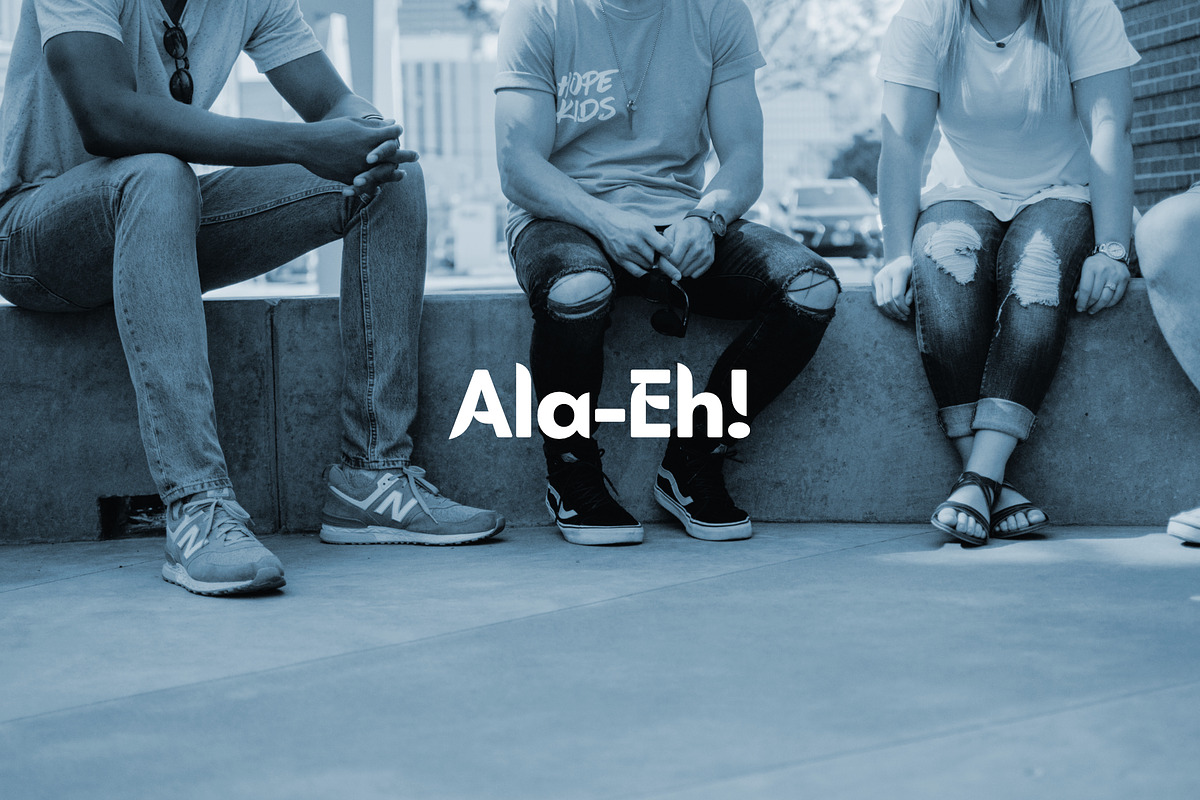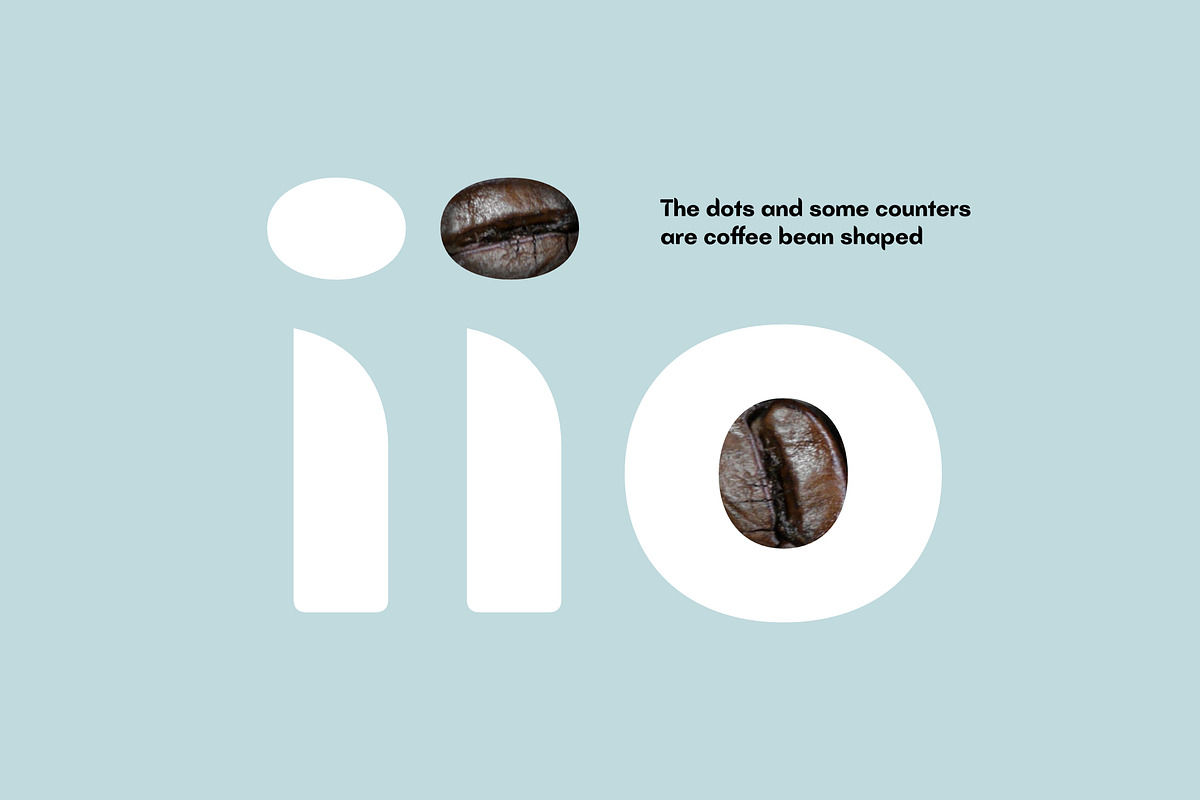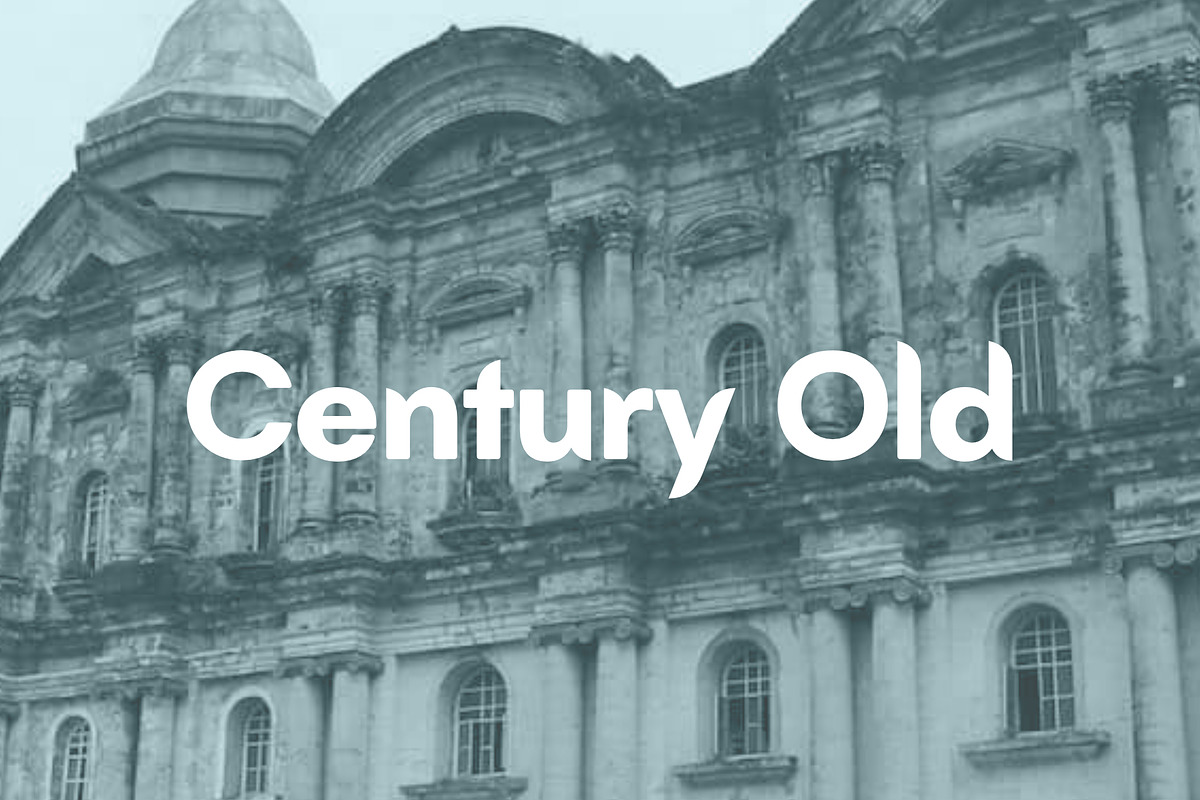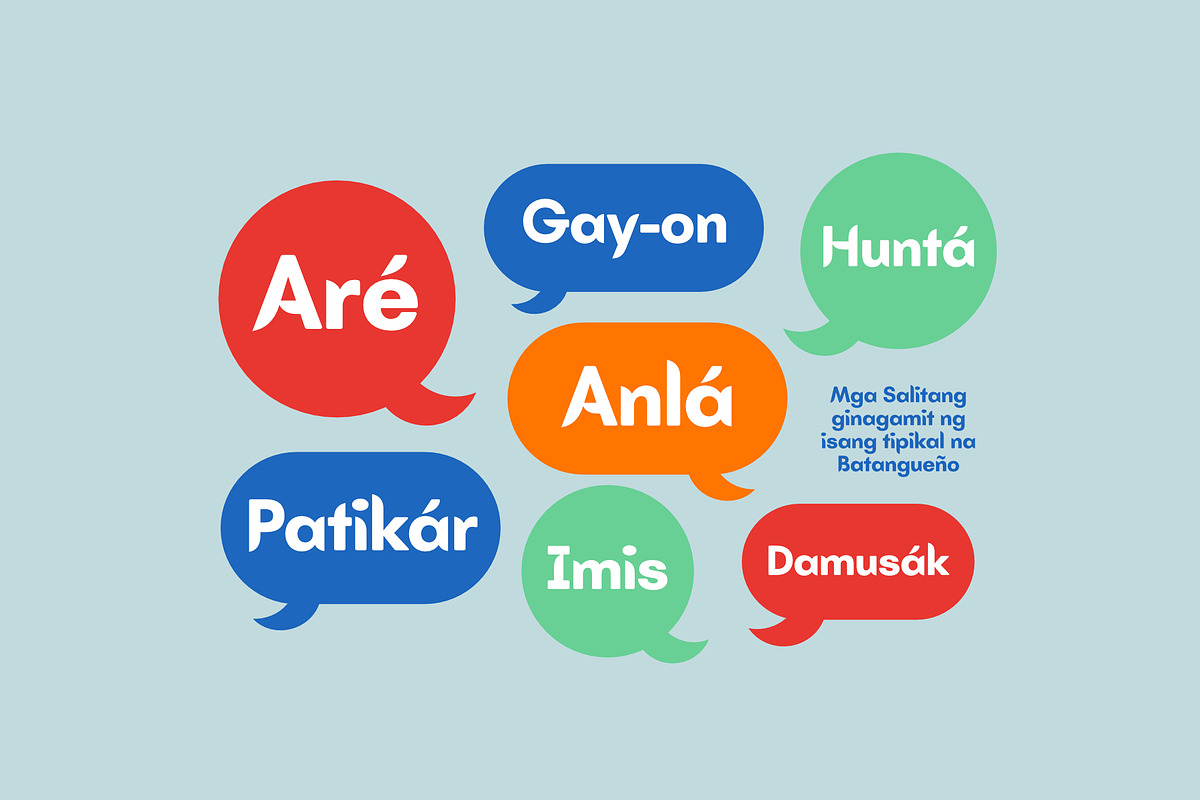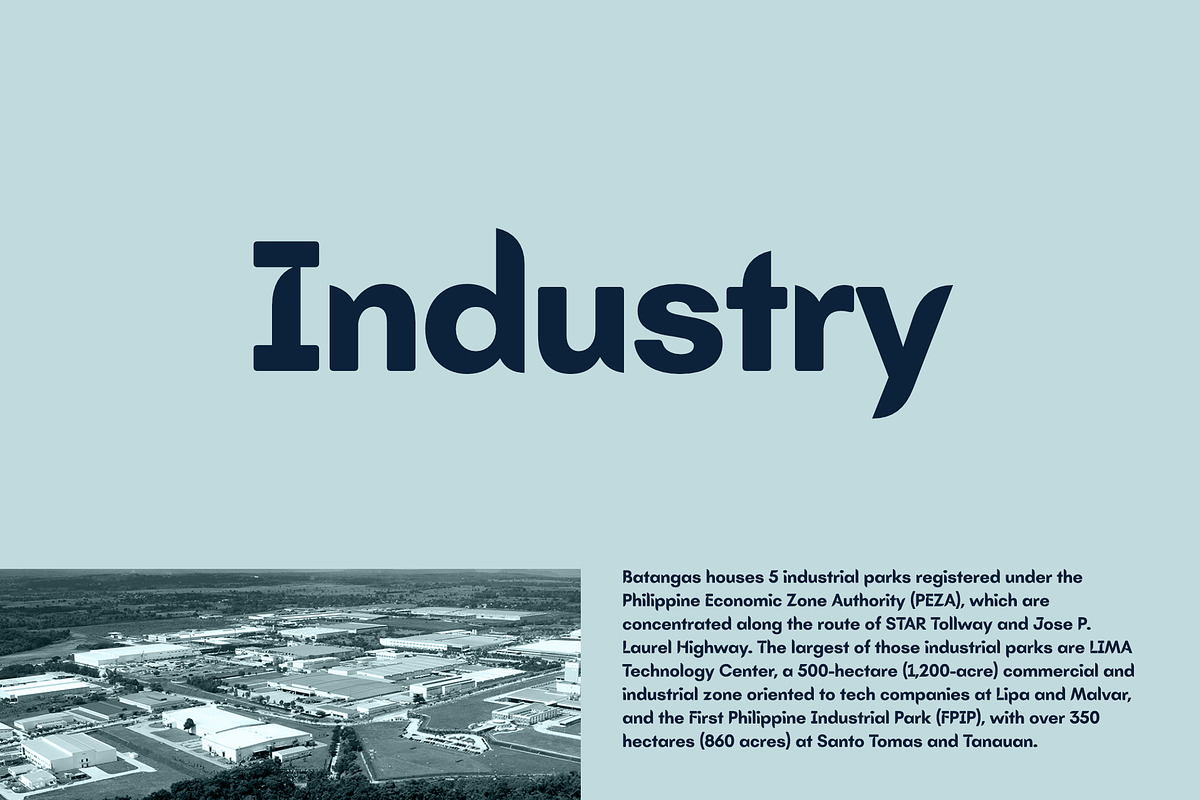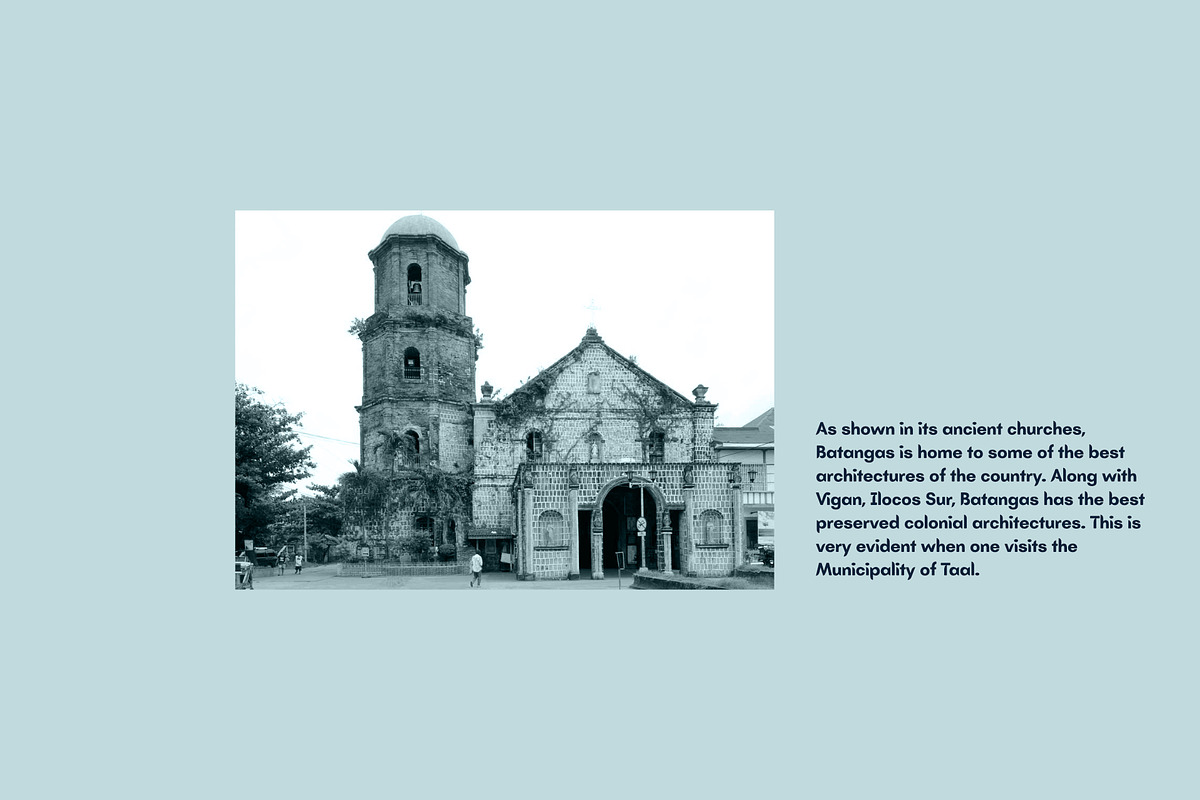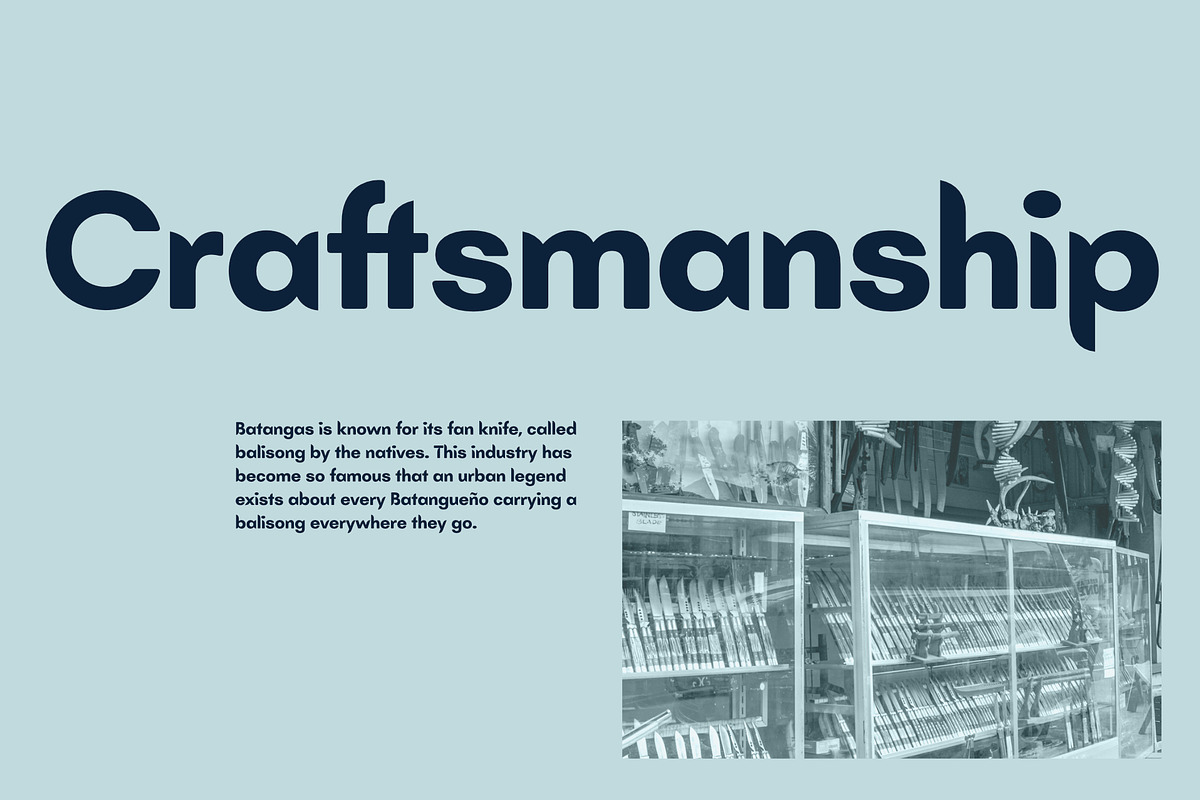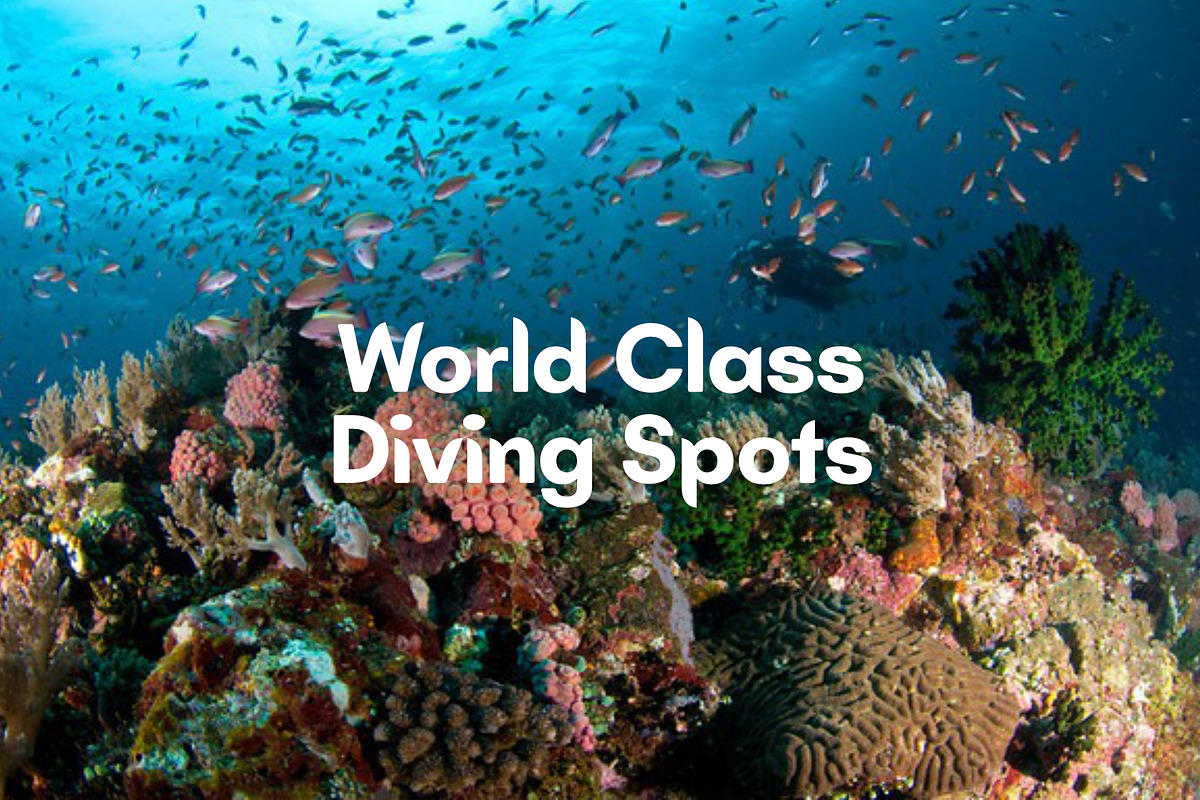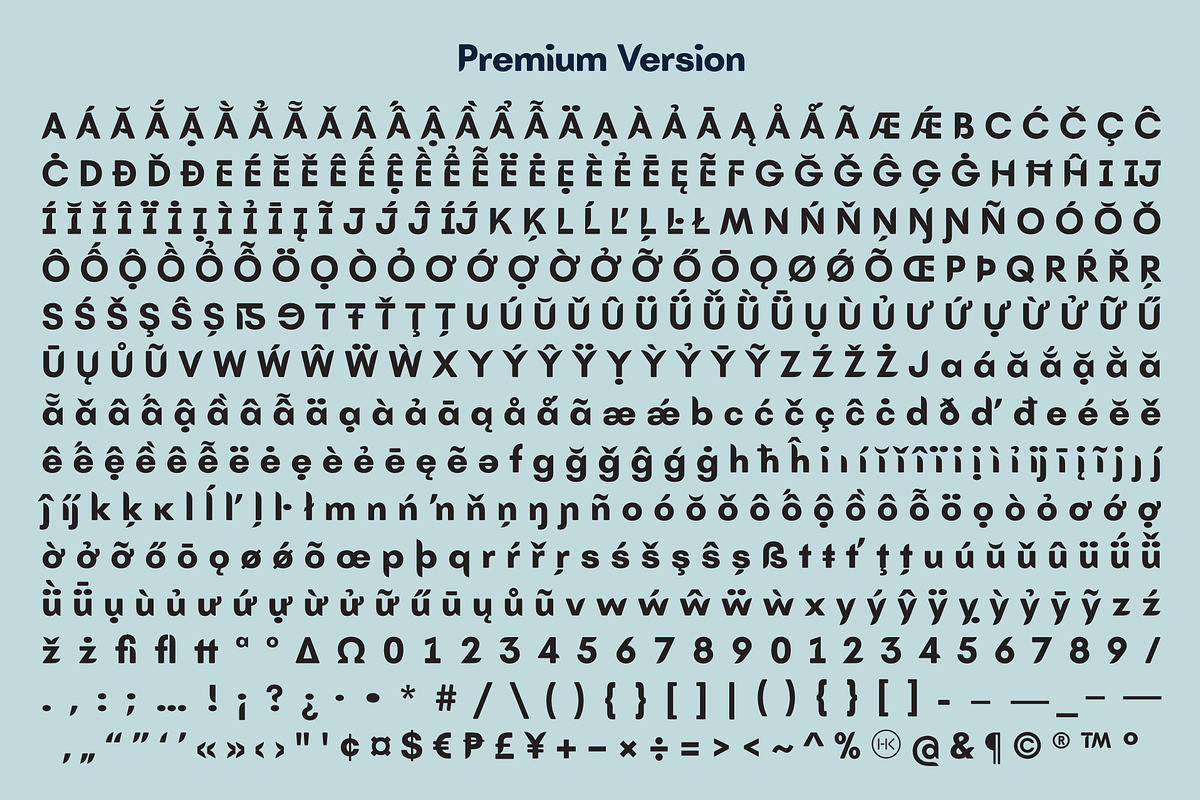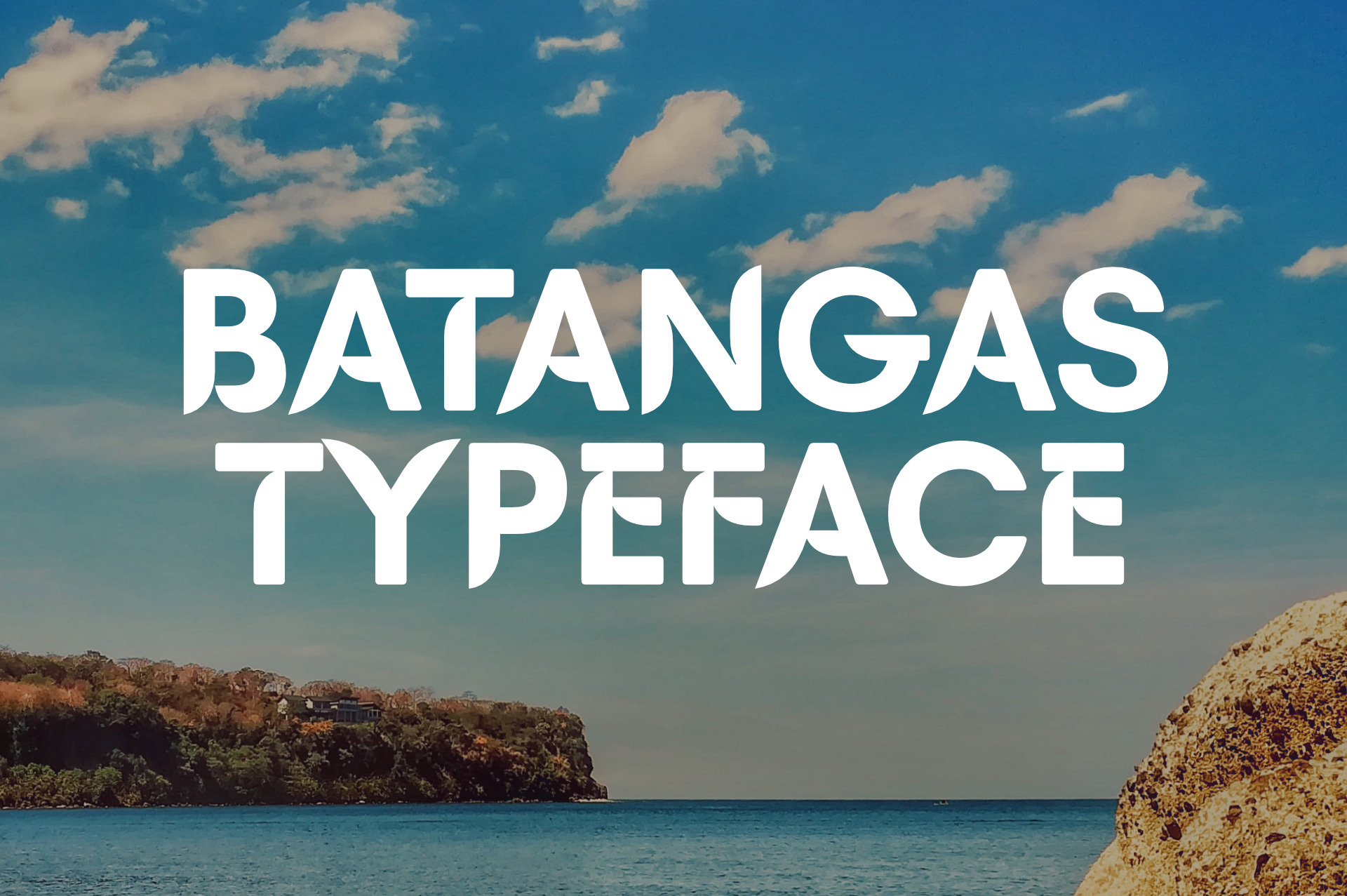
Batangas Typeface
Batangas typeface was inspired by the strong character of the people of Batangas, Philippines (Batangueños). This is evident in their culture, traditions, and iconic symbols.